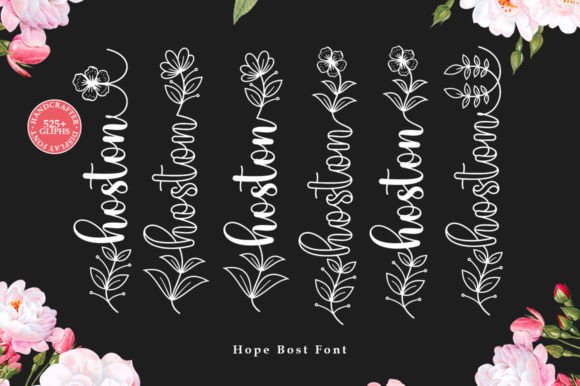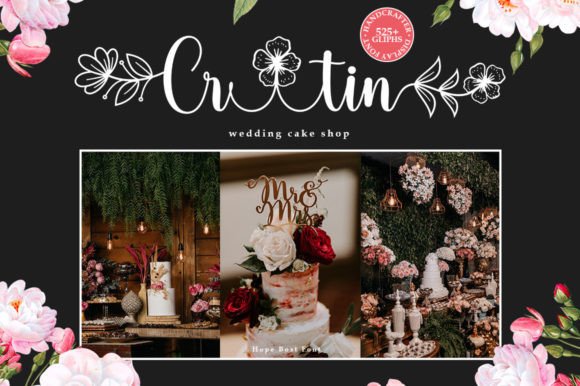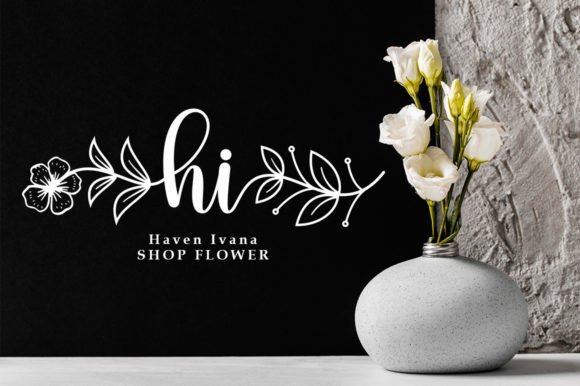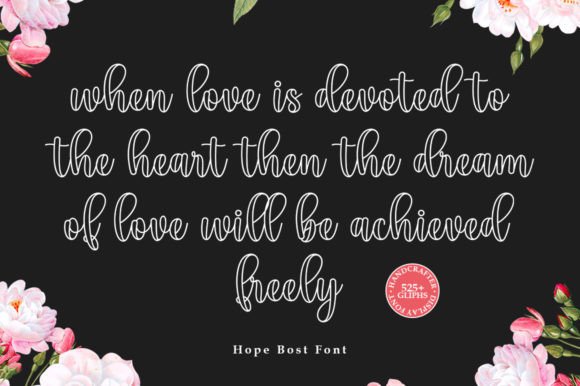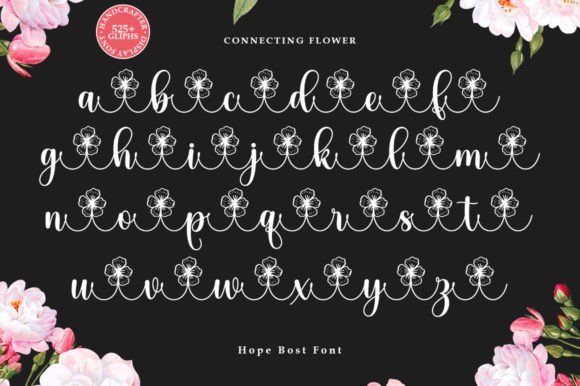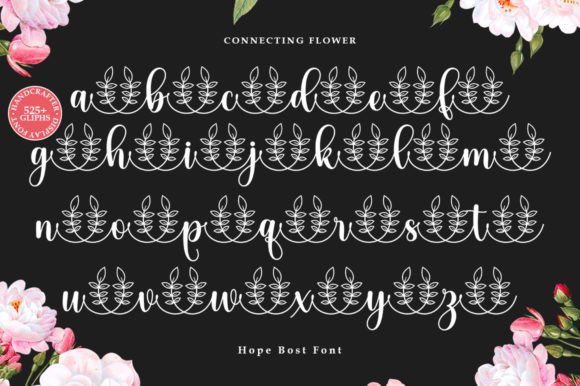
Introduction to Hope Best Font
Do you remember that moment when you stumbled upon the perfect design element for your project? The one that made everything fall into place, and your vision finally came to life? For many designers, that moment is often sparked by discovering a high-quality font that adds a touch of magic to their creative project. Today, we’re excited to introduce you to the Hope Best Font, a beautiful and elegant handwritten script that will undoubtedly bring joy and romance to your designs.
Whether you’re a seasoned designer or just starting out, the Hope Best Font is an incredible design resource that will elevate your work to the next level. With its transparent background and free download option, you can experiment with this gorgeous font in various projects without any limitations.
Key Features of Hope Best Font
- High-quality design resource ideal for creative projects, offering a unique and modern aesthetic.
- Features a large character set, including uppercase and lowercase letters, numbers, and punctuation marks.
- Unique characteristics include a clean and minimalist design, perfect for branding, logos, and typography-based creative projects.
Honest Review: Hope Best Font
I recently had the chance to work with the Hope Best Font, and I must say it’s been a great addition to my design resources. This high quality font has a unique charm that’s perfect for creative projects that require a touch of elegance.
One of the things I love about the Hope Best Font is its versatility. It works well for both digital and print designs, and its transparent background makes it easy to use in various design contexts. ✨
Here are some of the key features that I appreciate about the Hope Best Font:
- Unique and elegant design
- High quality and crisp typography
Of course, no font is perfect, and the Hope Best Font is no exception. ⚠️ I did find that it can be a bit difficult to read at smaller font sizes, and the font file is quite large. However, these are minor quibbles in an otherwise excellent design resource.
Overall, I’m thoroughly impressed with the Hope Best Font. It’s a great addition to any designer’s toolkit, and I highly recommend it for any creative project that requires a touch of sophistication.
Tips and Use Cases
Some common use cases for Hope Best Font include creating social media graphics, designing business cards, and developing marketing materials. To get the most out of this font, use it in conjunction with a high quality image or background to create a visually appealing design.